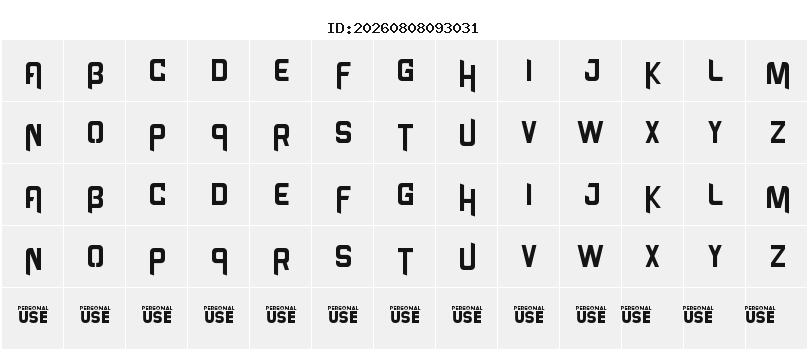
• Font Name: Power Bass
• Designer: Luis Jaramillo
• Manufacturer: LJ Design Studios
About Power Bass.ttf
Power Bass.ttf is a modern, elegant sans-serif font designed for ultimate readability and visual harmony. Perfect for branding, headlines, web design, and print materials.